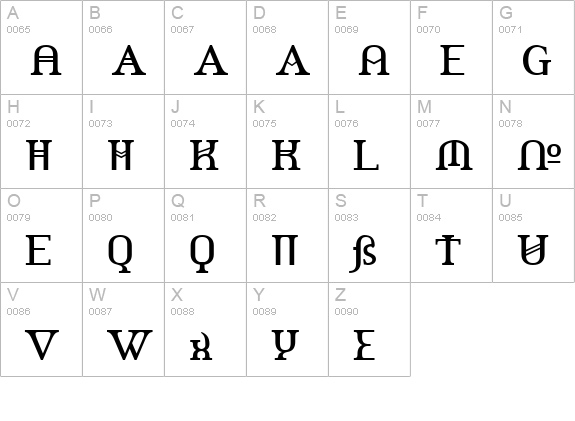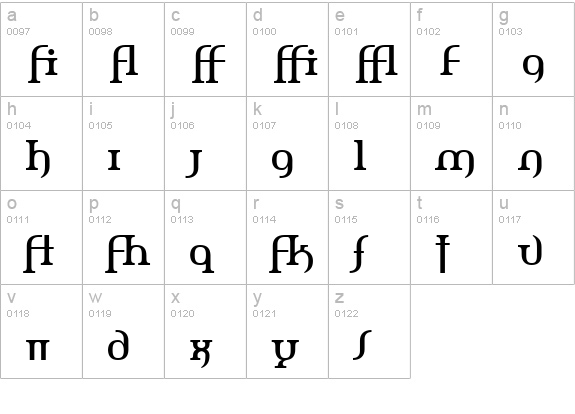
Amerika Alternates Font Details
Amerika Alternates font is a modern and stylish typeface that exudes elegance and sophistication. With its sleek lines and unique alternate characters, this font is perfect for adding a touch of class to any design project. The versatility of Amerika Alternates makes it suitable for a variety of applications, from branding to editorial design. This font is available for free download at FontsMarket.com, making it easily accessible to designers looking to elevate their work with a touch of sophistication. Whether you're creating a logo, poster, or website design, Amerika Alternates font is sure to make a statement and leave a lasting impression. Don't miss out on the opportunity to enhance your designs with this beautiful and stylish font. Download it for free today at FontsMarket.com!